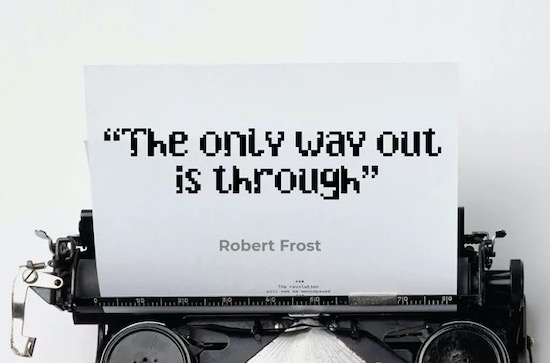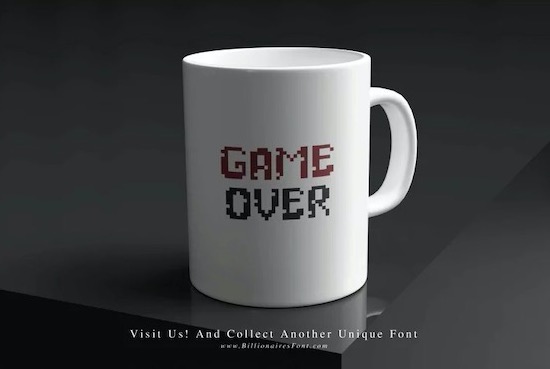
Thug Life is a chic and class bitmap – pixel font that was designed and released by Aldedesign. This display font will make your design projects become more outstanding. It’s a crafty and distinctive display font. With a combination of pixel-art and scary horror themes. Masterfully designed to become a true favorite, this font has the potential to bring each of your creative ideas to the highest level!
Thug Life Bitmap/Pixel Font
Name: Thug Life
Designed, Published by: Aldedesign
Categories: Bitmap/Pixel, Display